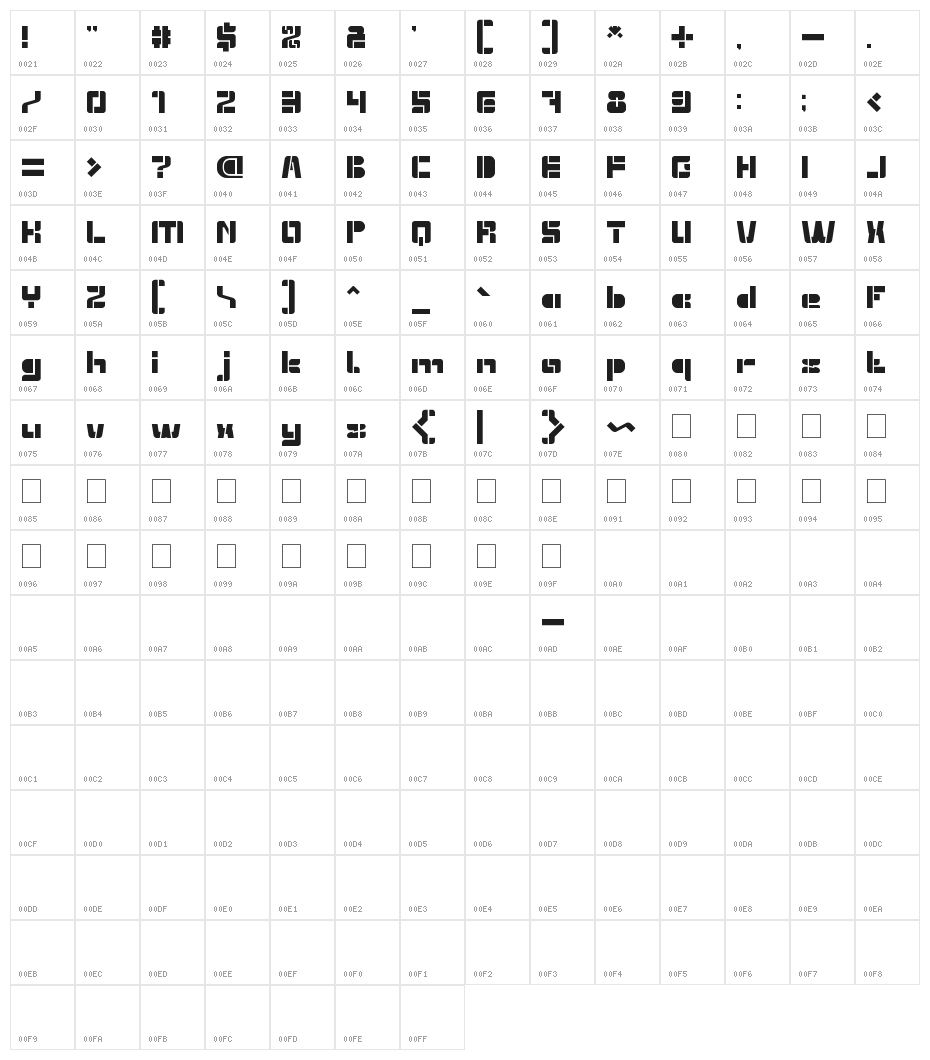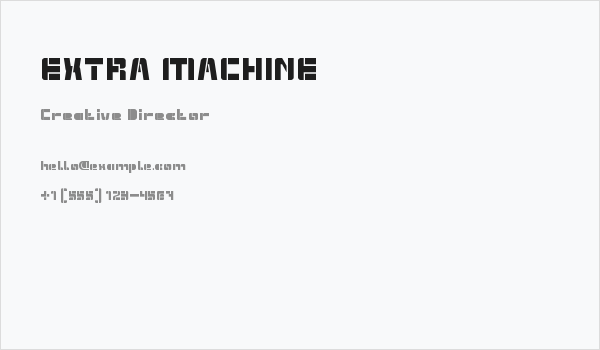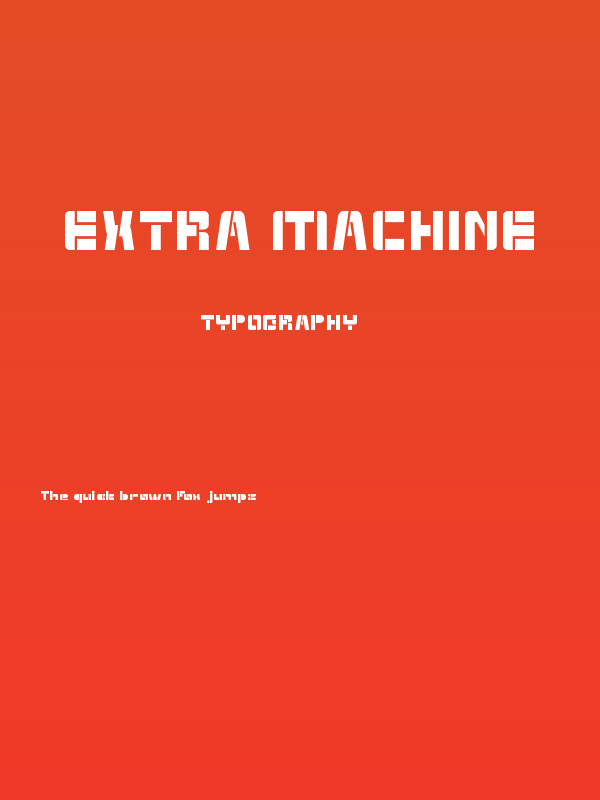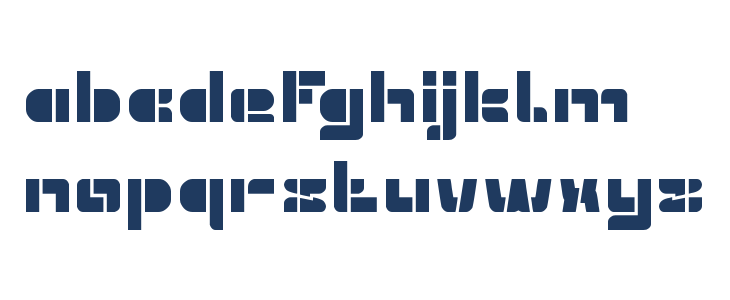
EXTRA MACHINE Font
EXTRA MACHINE Description
This font features a bold, geometric design with a strong industrial feel. The characters are constructed with thick, block-like shapes that create a sense of solidity and strength. The uppercase and lowercase letters maintain a consistent style, with angular cuts and a uniform thickness throughout. The numerals and special characters follow the same design principles, ensuring a cohesive appearance across all elements. This font is highly legible and makes a striking visual impact, suitable for projects that require a modern and assertive aesthetic.
| Proposed Projects | Ideal for branding, posters, headlines, and any design work that requires a strong, modern aesthetic. |